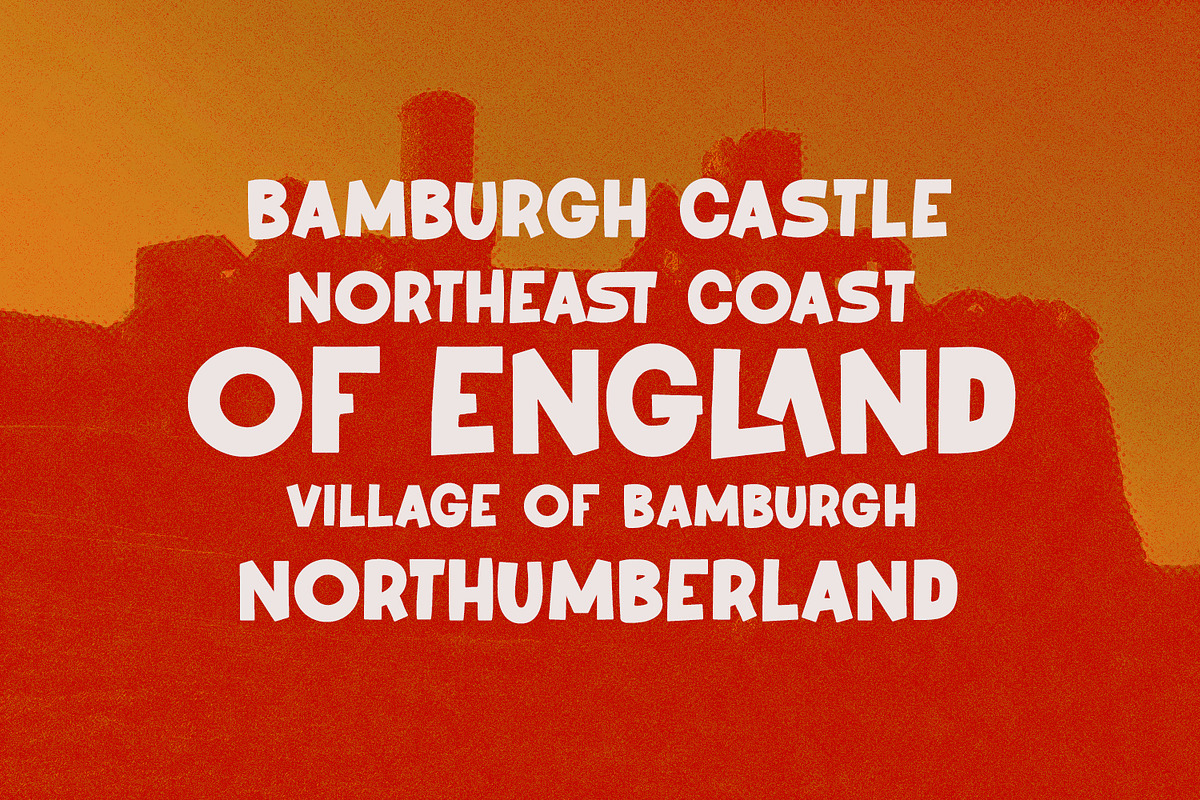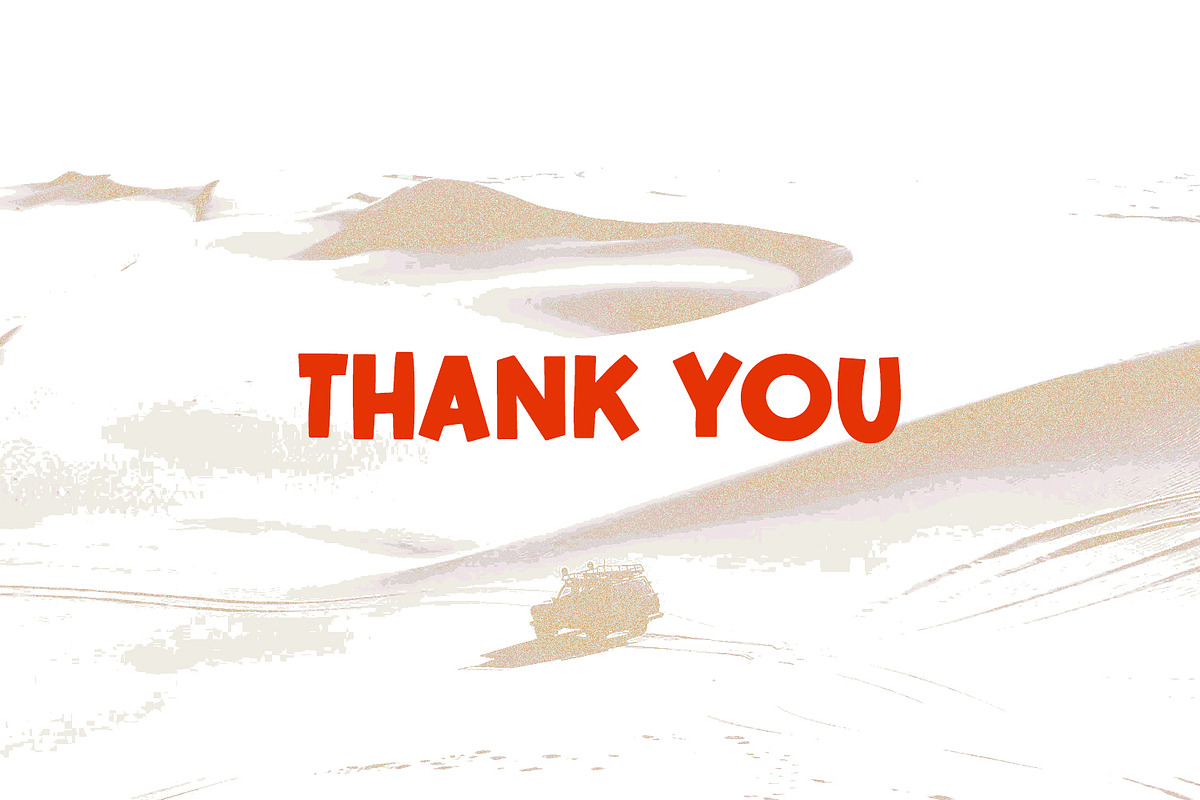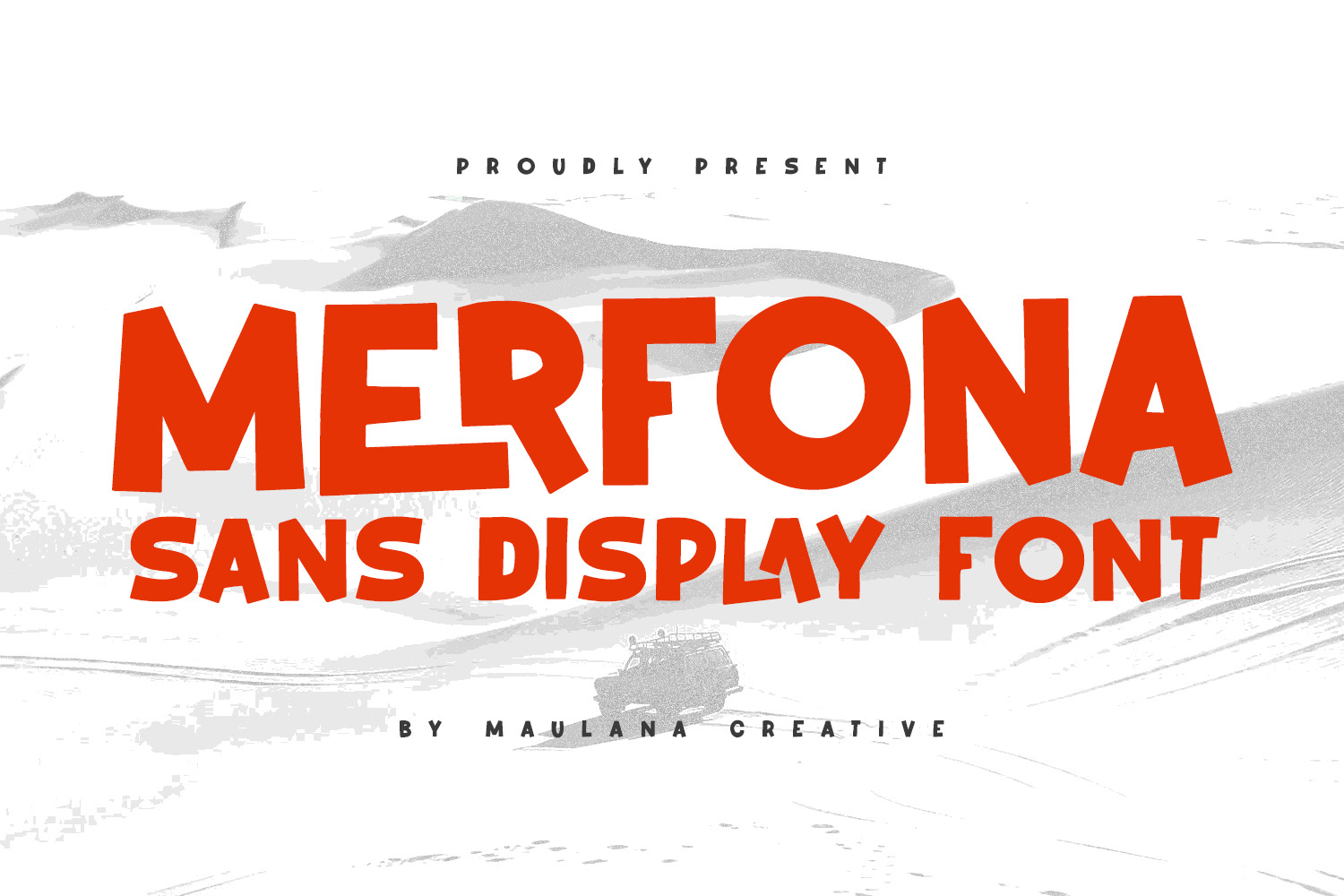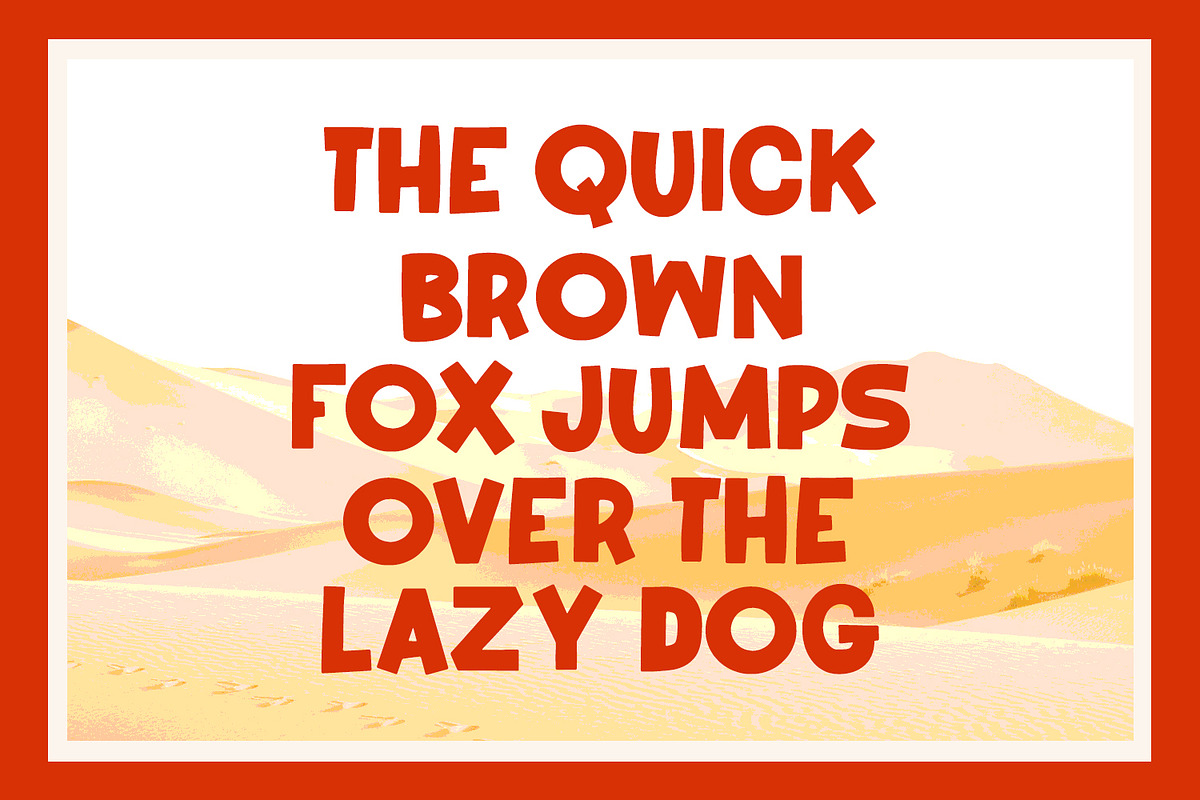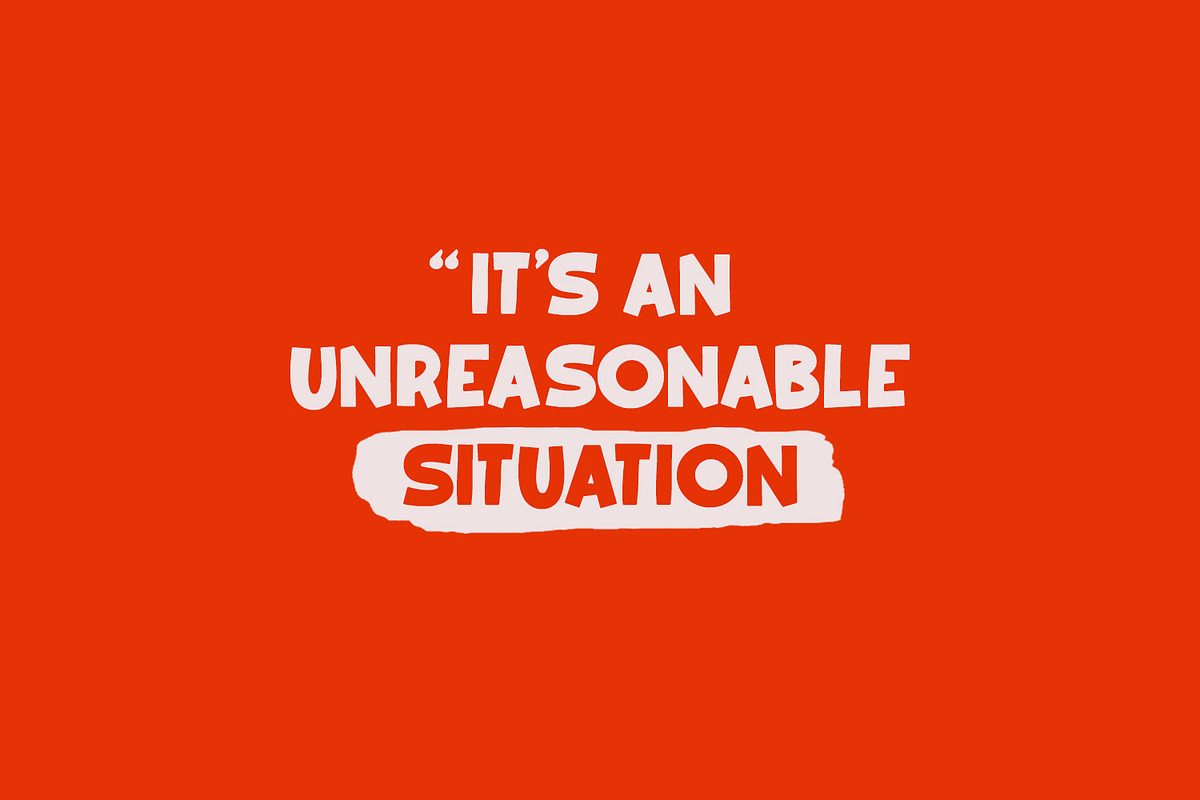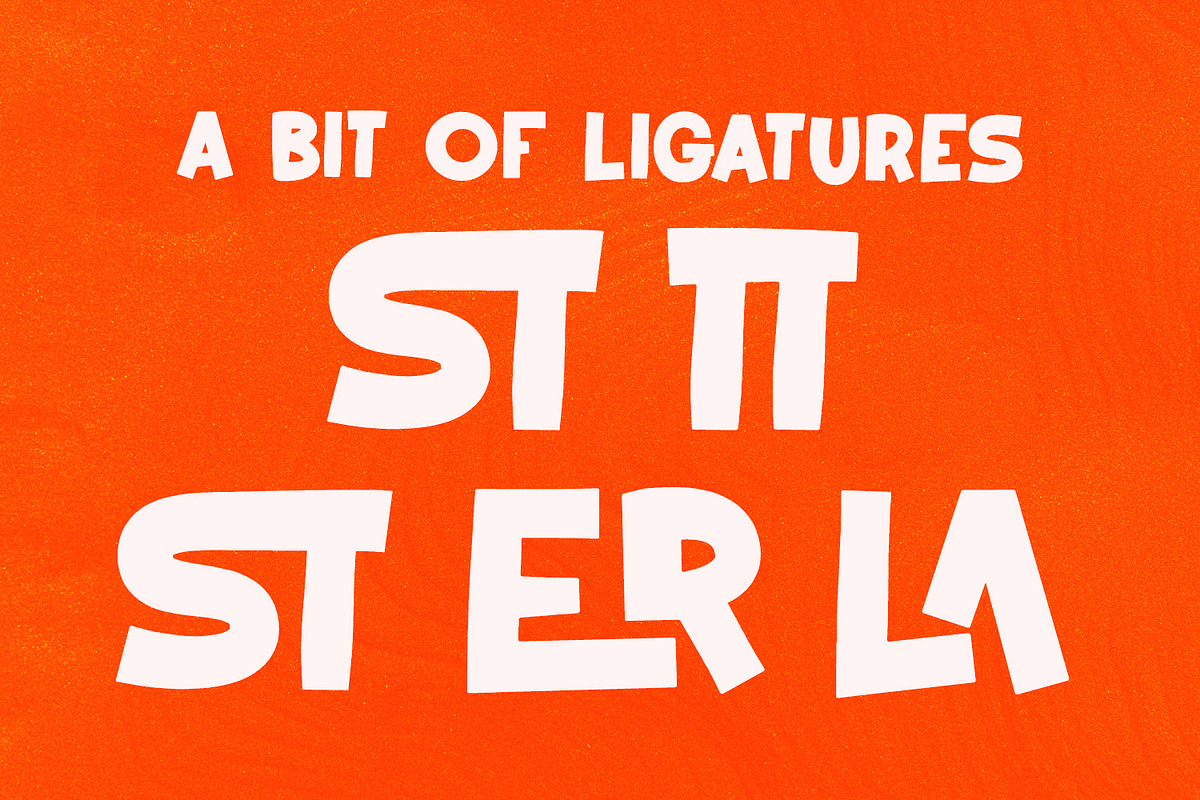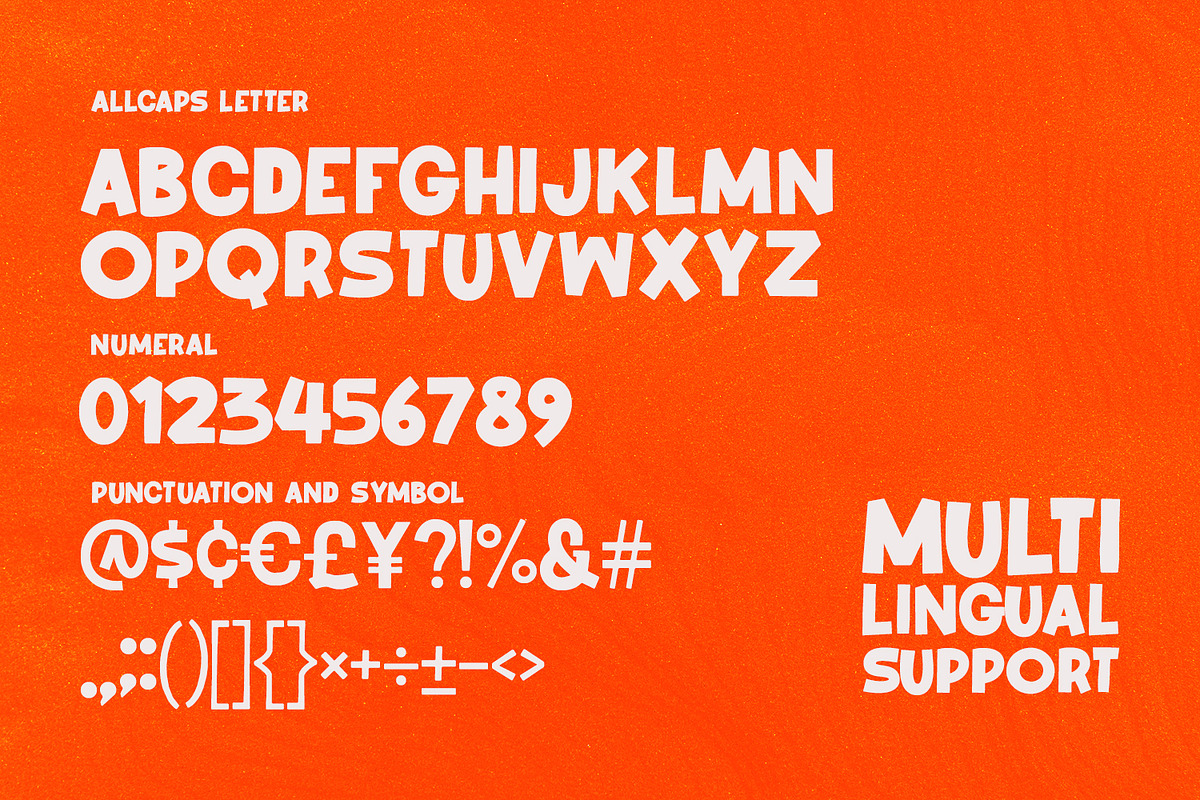
Merfona Sans Display Font
Merfona sans display font. Fun character with a bit of ligatures. To give you an extra creative work. This font is good for logo design, Social media, Movie Titles, Books Titles, a short text even a long text letter and good for your secondary text font with script or serif. Make a stunning work with Merfona font.